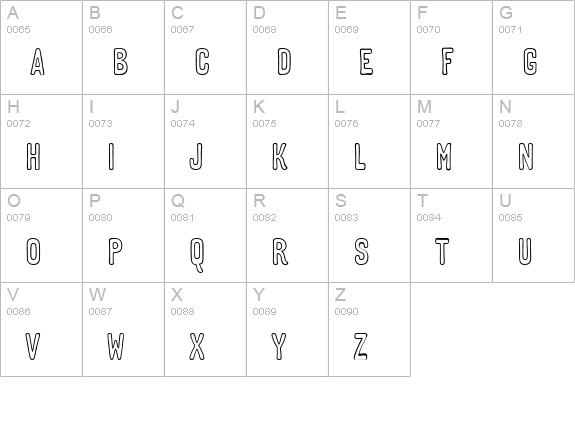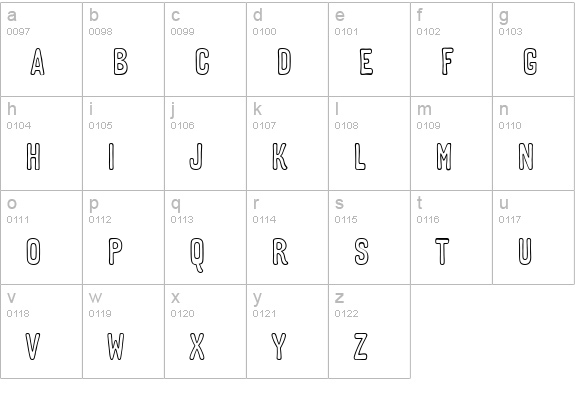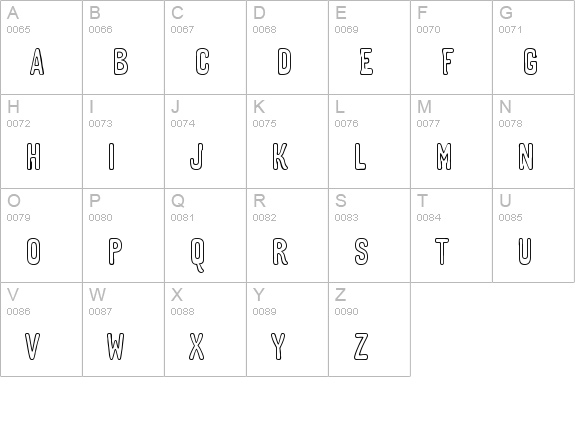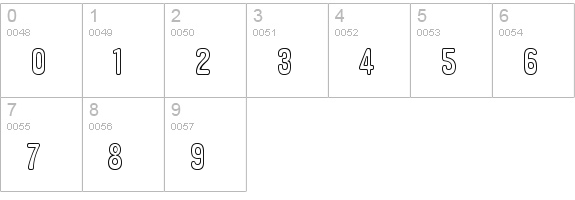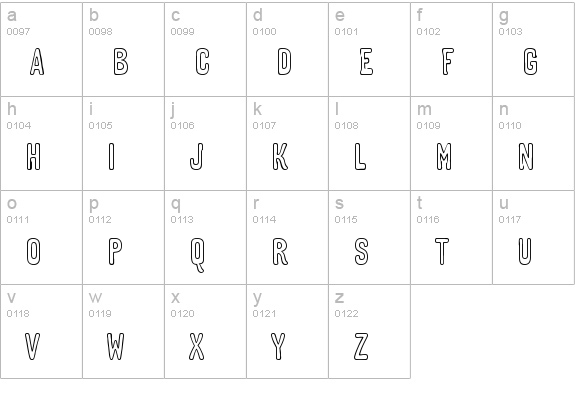
TLMoulinRougeOutline font is a visually stunning and captivating typeface that exudes elegance and sophistication. Inspired by the iconic aesthetics of the Moulin Rouge, this font beautifully captures the essence of the extravagant and alluring atmosphere of the famous Parisian cabaret. With its delicate outlines and graceful curves, TLMoulinRougeOutline font adds a touch of glamour to any design project. Whether used for headlines, logos, posters, or invitations, this font effortlessly commands attention and leaves a lasting impression. But what makes TLMoulinRougeOutline font even more appealing is that it is available for free! Yes, you read that right. This exquisite font can be freely downloaded at FontsMarket.com, making it accessible to designers, creatives, and enthusiasts alike. So why wait? Unleash your creativity and elevate your designs with the enchanting TLMoulinRougeOutline font. Download it for free today at FontsMarket.com and let your imagination run wild!